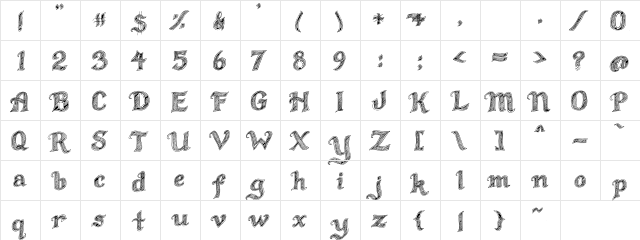
LOT Princess Bridey Fancy Regular
Design Context for LOT Princess Bridey Fancy Typeface
LOT Princess Bridey Fancy is a composed and adaptable typeface that performs quietly and consistently across a wide range of design contexts.